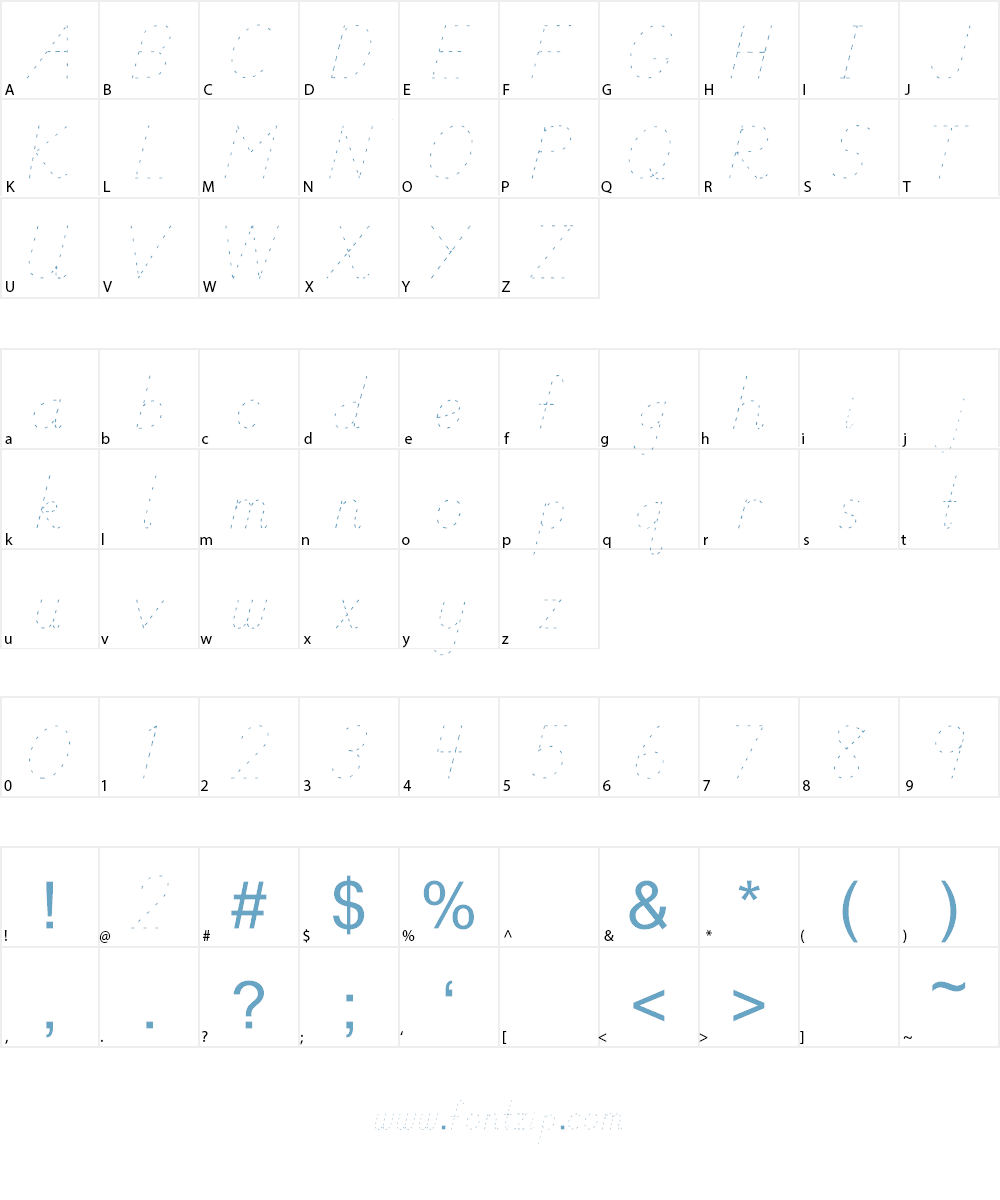
This is a very basic (no punctuation) D'Nealian-style dotted line font, specifically designed to use in worksheets for preschoolers learning their letters & numbers. Because it was intended for learning children, it displays best at larger sizes (60pt & up), to make it easier to trace.